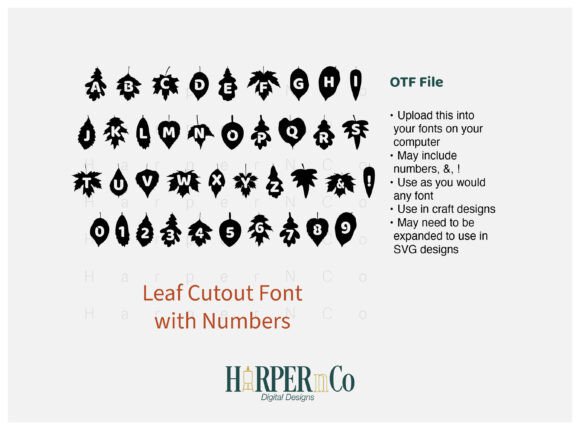
Introduction to Leaf Cutout Font
Have you ever been working on a creative project, pouring your heart and soul into it, only to be stuck on the final touches? The perfect font can make all the difference in elevating your design from good to great. For designers, finding the right font can be a game-changer, and that’s exactly what the Leaf Cutout Font offers.
This unique and quirky font is a game-changer for designers looking to add a touch of whimsy to their projects. The Leaf Cutout Font features a range of leaf designs, each one carefully crafted to create a fun and playful effect. With a transparent background and high-quality design, this font is perfect for adding a creative twist to your designs.
Key Features of Leaf Cutout Font
- High-quality vector design for a crisp and detailed appearance, ideal for creative projects and designs.
- Features a transparent background, allowing for seamless integration into designs and minimizing the risk of unwanted backgrounds.
- Designed with a high level of detail and precision, making it suitable for use in print and digital designs.
- Can be easily scaled and resized without compromising on quality, ensuring versatility in various design applications.
Honest Review: Leaf Cutout Font
- ✨ High-quality design: The font is well-crafted and has a professional look to it.
- ✨ Transparent background: This allows for easy integration into various design projects.
- ✨ Versatility: The font can be used for a variety of purposes, from invitations to packaging design.
- ⚠️ Limited customization options: The font is a pre-made design, which can make it difficult to make significant changes.
Overall, I’m impressed with the Leaf Cutout Font. It’s a great design resource for those looking to add a touch of elegance to their projects. With its high-quality design and transparent background, it’s an excellent choice for designers of all levels.
Getting the Most Out of the Leaf Cutout Font
For the best results, use the Leaf Cutout Font in conjunction with other design resources, such as graphics and images. You can also experiment with different font sizes and colors to create a unique and eye-catching design.
The Leaf Cutout Font is a versatile design resource that can be used for a variety of creative projects, including logos, social media graphics, and presentations. It is also a great option for designers who want to create high-quality designs with a transparent background.
Q: Can I customize the Leaf Cutout Font to fit my design needs, and are there any limitations to its use?